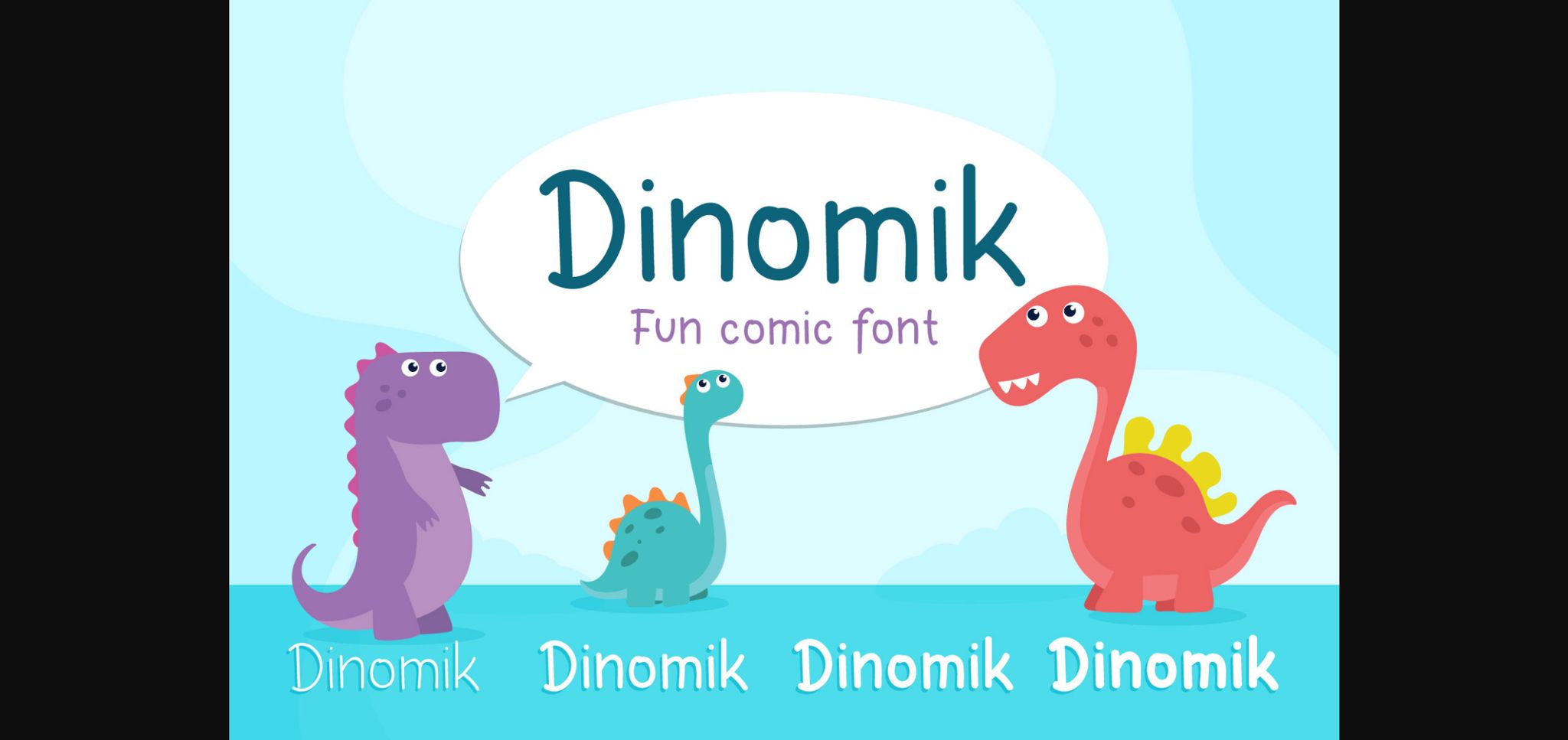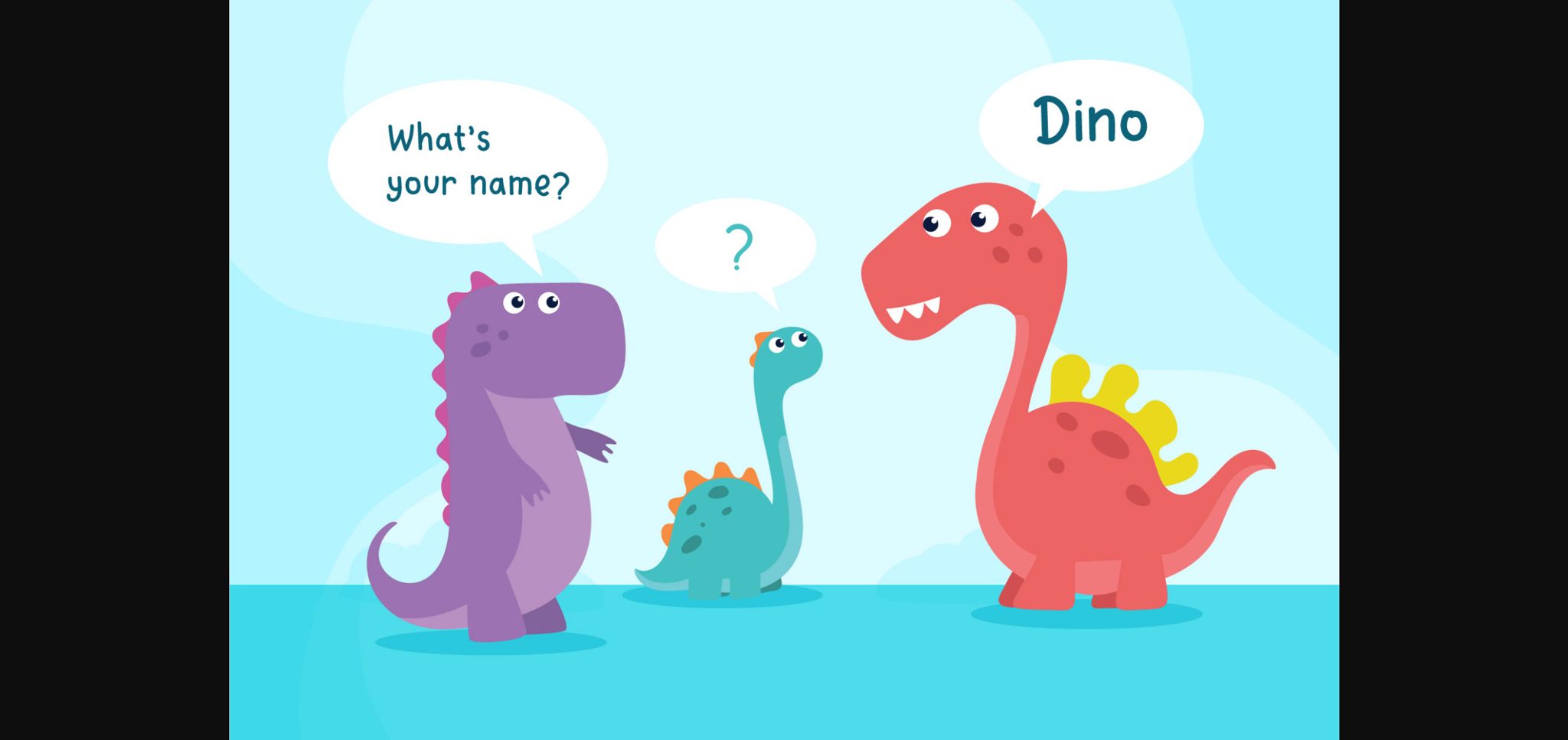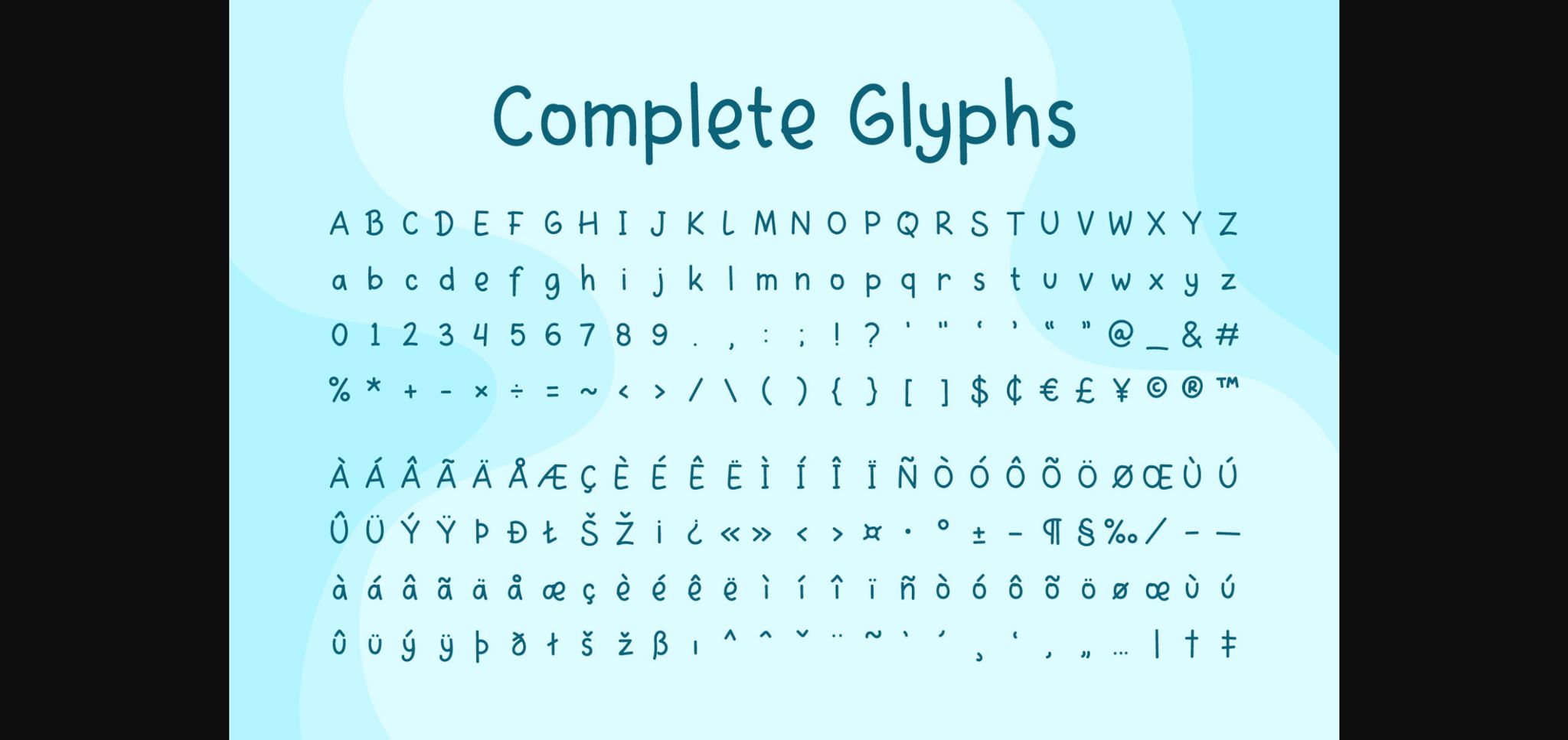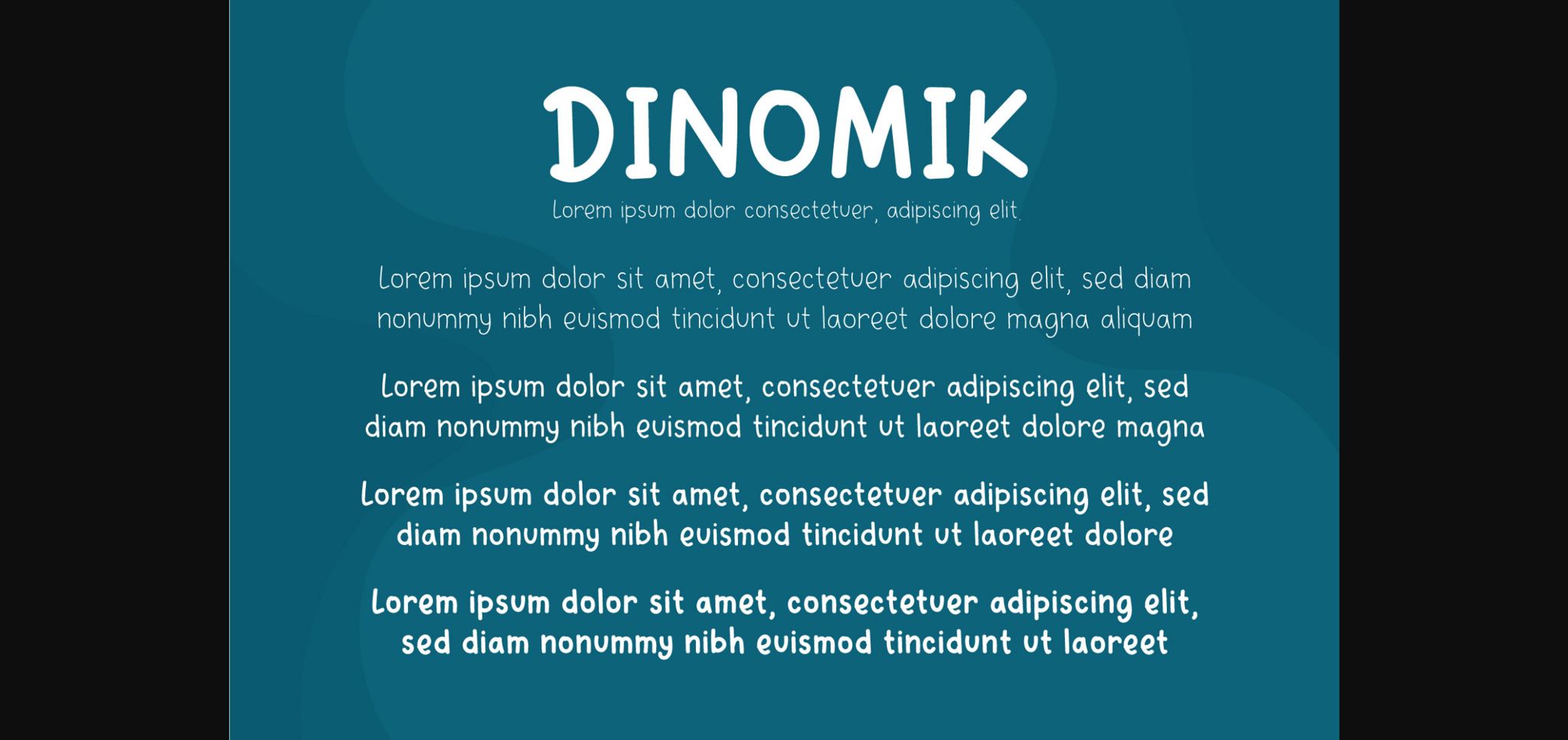
Dinomik Font
About Dinomik Font
Dinomik is a fun and cheerful sans serif font. It comes in four variations and it will add a super cute touch to any creative design you have.